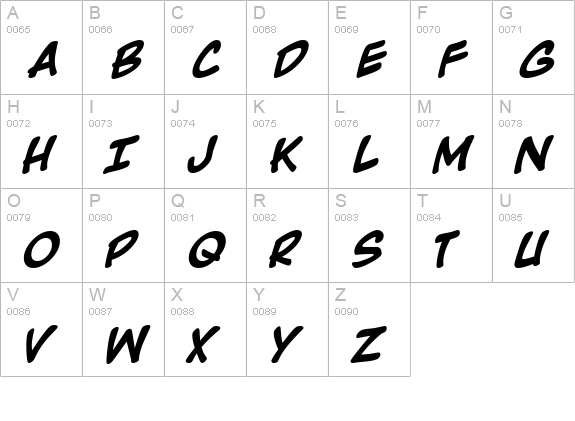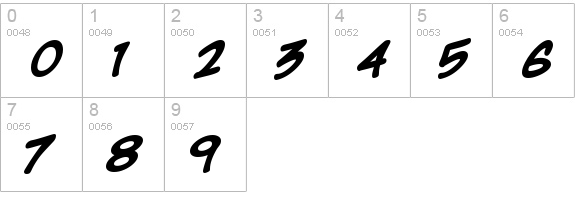
Rooftop Run Bold is a strong, high-contrast variant in the Rooftop typeface family \xE2\x80\x94 well suited to headlines, attention-grabbing titles, and strong calls-to-action.
Introducing Rooftop Run Bold font, a captivating and dynamic typeface that exudes modernity and sophistication. With its bold and powerful design, Rooftop Run Bold is perfect for making a statement in your design projects. The strong lines and sleek curves of this font will instantly draw attention and add a touch of elegance to any project. What sets Rooftop Run Bold font apart is not only its striking appearance but also the fact that it is available for free download at FontsMarket.com. This means that you can easily access this high-quality font without any cost, making it a valuable addition to your font collection. Whether you're designing posters, logos, or websites, Rooftop Run Bold font will elevate your work and leave a lasting impression on your audience. Don't miss out on the opportunity to enhance your designs with Rooftop Run Bold font. Download it for free today and unleash its bold and modern style in your creative projects.